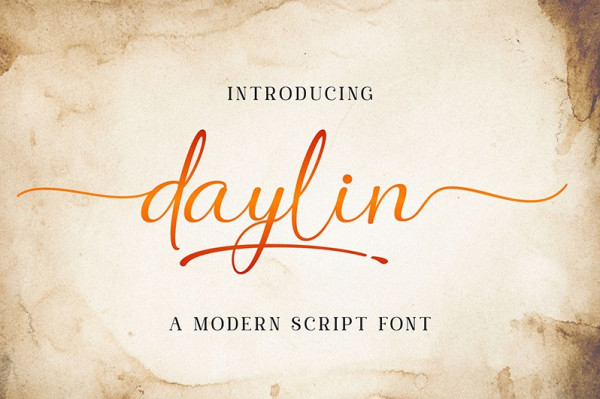
Daylin Font
Daylin Font is a sweet hand lettered font. it’s casual and dynamic with a dancing baseline. prefect for adding a elegant and classy feel to your design.